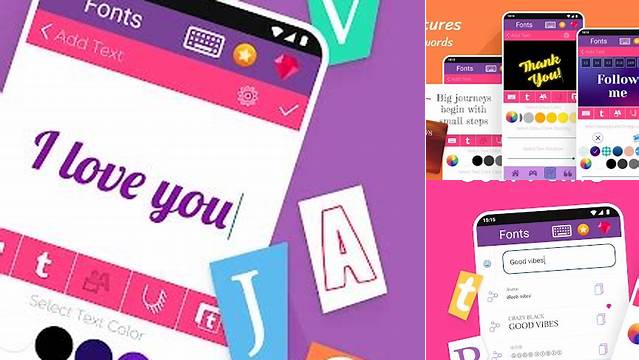
Hey guys! Ever wanted to make your texts and social media posts pop? I mean, who doesn't, right? We live in a world where standing out is key, and what better way to do that than with some stylish fonts? That's where the Art Fonts Stylish Text Mod APK comes in. It's like giving your phone a makeover, but for your words! So, let’s dive into why this Mod APK is the talk of the town and how you can get your hands on it.
What is Art Fonts Stylish Text Mod APK?
First things first, what exactly is this Art Fonts Stylish Text Mod APK we're raving about? Simply put, it's a modified version of a text styling app that unlocks premium features for free. Think of it as the VIP pass to the world of fancy fonts and cool text effects. You know, those fonts that make you go, "Wow, I need that!" Yeah, those ones. This Mod APK gives you access to a vast library of art fonts, stylish texts, and other cool features that usually come with a price tag.
Benefits of Using Art Fonts Stylish Text Mod APK
So, what’s in it for you? Why should you even bother with this Art Fonts Stylish Text Mod APK? Well, let's break it down. Imagine having the power to transform your boring text messages into eye-catching masterpieces. That's just the tip of the iceberg!
1. Access to Premium Fonts
This is the big one, guys. The Art Fonts Stylish Text Mod APK unlocks a treasure trove of premium fonts. We're talking about fonts that are so stylish, they could walk the runway. Whether you're into elegant calligraphy, futuristic designs, or quirky handwriting styles, there's something for everyone. Imagine jazzing up your Instagram captions or WhatsApp messages with these beauties. Your friends will be asking, “How did you do that?”
2. Cool Text Effects and Styles
But wait, there's more! It's not just about fonts. This Art Fonts Stylish Text Mod APK also gives you access to a range of cool text effects and styles. Think about adding shadows, gradients, or even 3D effects to your text. You can make your words stand out in ways you never thought possible. It's like having a mini graphic design studio in your pocket.
4. User-Friendly Interface
No one wants to use an app that feels like rocket science. Thankfully, the Art Fonts Stylish Text Mod APK comes with a user-friendly interface. It's designed to be intuitive and easy to use, even if you're not a tech whiz. You can quickly find the fonts and styles you need, preview them, and apply them to your text with just a few taps. It's all about making the process as seamless and enjoyable as possible.
5. Regular Updates and New Features
The best part? The developers of this Art Fonts Stylish Text Mod APK are always working to improve it. That means you can expect regular updates with new fonts, styles, and features. It's like getting a gift that keeps on giving! You'll never run out of ways to spice up your text game.
H2: Understanding Art Fonts and Stylish Text
H3: The Evolution of Art Fonts
The evolution of art fonts is a fascinating journey through time, reflecting changing artistic styles and technological advancements. Initially, art fonts were meticulously hand-drawn, a testament to the skill and patience of the artists. These early fonts often adorned manuscripts and important documents, showcasing the beauty and elegance of calligraphy. The advent of printing presses revolutionized font creation, allowing for mass production and wider dissemination of various stylish text designs. The Industrial Revolution further propelled this evolution, with new technologies enabling the creation of more intricate and diverse art fonts. In the digital age, software and computer-aided design have democratized font creation, empowering designers to experiment with styles and effects. Today, we see a fusion of traditional and contemporary influences in art fonts, with digital tools allowing for the creation of fonts that push the boundaries of typography. This blend of past and present ensures that the evolution of art fonts continues to be a vibrant and dynamic field, offering endless possibilities for creative expression. The accessibility of these fonts through platforms like the Art Fonts Stylish Text Mod APK makes it easier than ever for individuals to enhance their digital communications with unique typographic styles.